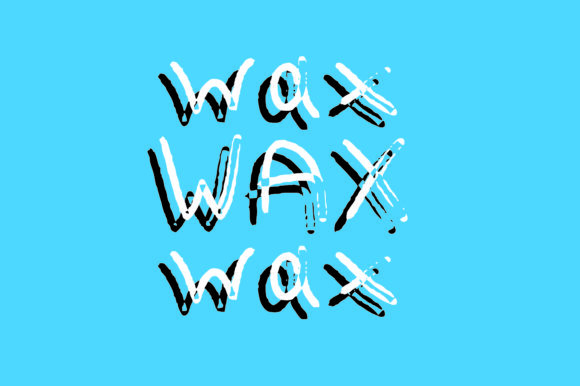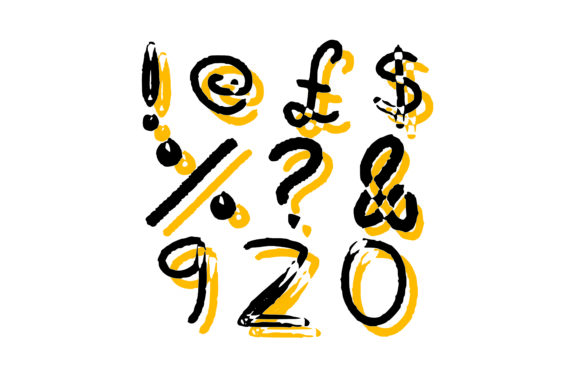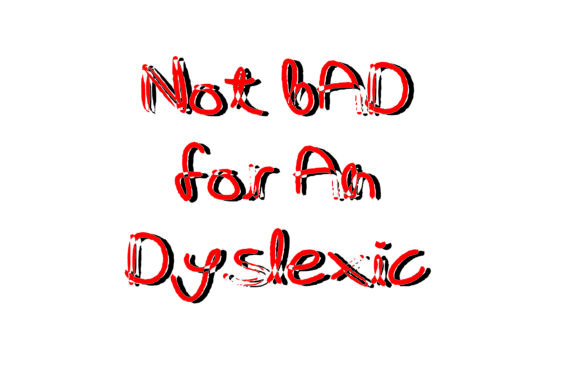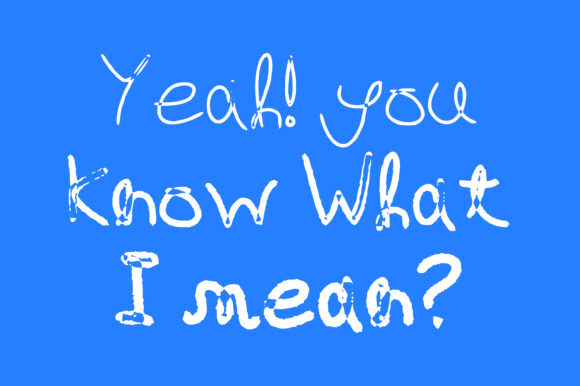
HomeScript FontsWax Font Script Fonts Wax Font FacebookXPinterestWhatsApp Wax Font Poster 2 Wax Font Poster 3 Wax Font Poster 4 About Wax Font Wax is a casual handwritten font with a playful and unique charm. DOWNLOAD ON CREATIVE FABRICAThis font is sold and delivered by Creative Fabrica. Font Canyon may earn a commission if you buy through this link. People also explored Sunshine Tropical Font Choco Chici Font Marshmallow Floof Font Electrasonic Galler Rebunk Font Hasnabilla Font Simple Explaine Font Hoffman Font Vivala Slab Font 284 0 TagsWax Font Previous articleWhitelist FontNext articleAllianta Font LEAVE A REPLY Cancel reply Comment: Please enter your comment! Name:* Please enter your name here Email:* You have entered an incorrect email address! Please enter your email address here Website: Save my name, email, and website in this browser for the next time I comment. Personal Use Free Hello Holiday Personal Use Free Read more about this font Lynoselt Personal Use Free Read more about this font Pumpkin Type Halloween Font Personal Use Free Read more about this font Barokah Personal Use Free Read more about this font BLOG Best Fonts for T-Shirt Design – Top 2025 Picks In 2025, t-shirt design has become more than just fashion—it's a form of self-expression. Whether you're... Using Fonts in Digital Marketing: Tips to Strengthen Your Brand Identity How to Install and Use Fonts on Windows, macOS, and Web Projects 5 Fonts That Will Dominate Design Trends in 2026